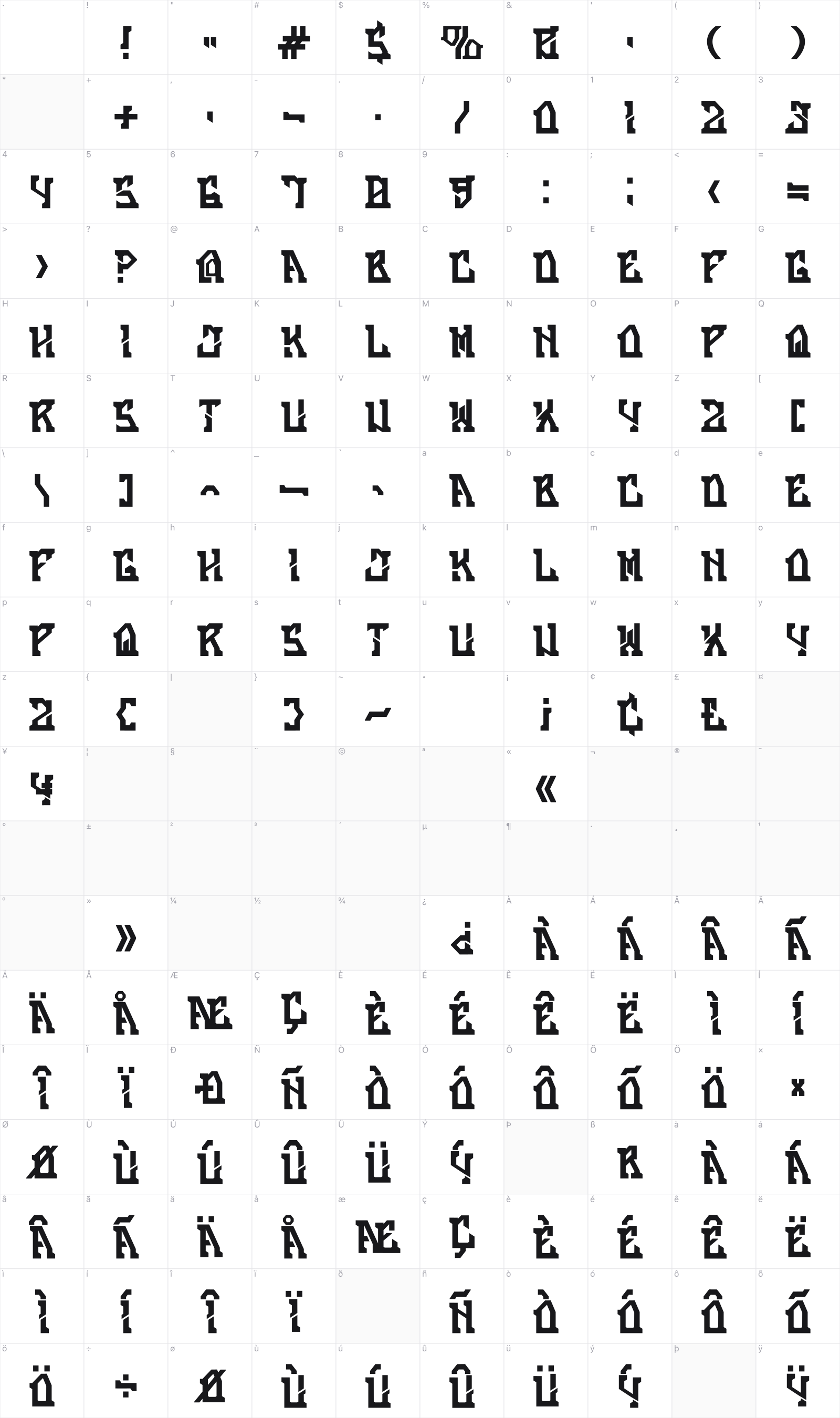
Optimazer
by Dhabee Studio
Optimazer is a heavy gothic display font built from thick angular strokes with sharp notched cuts at joints and terminals. The chiseled construction gives it a raw, carved quality that sits somewhere between blackletter tradition and extreme metal lettering. Strong at large sizes for posters, album covers, and titles that need serious weight.